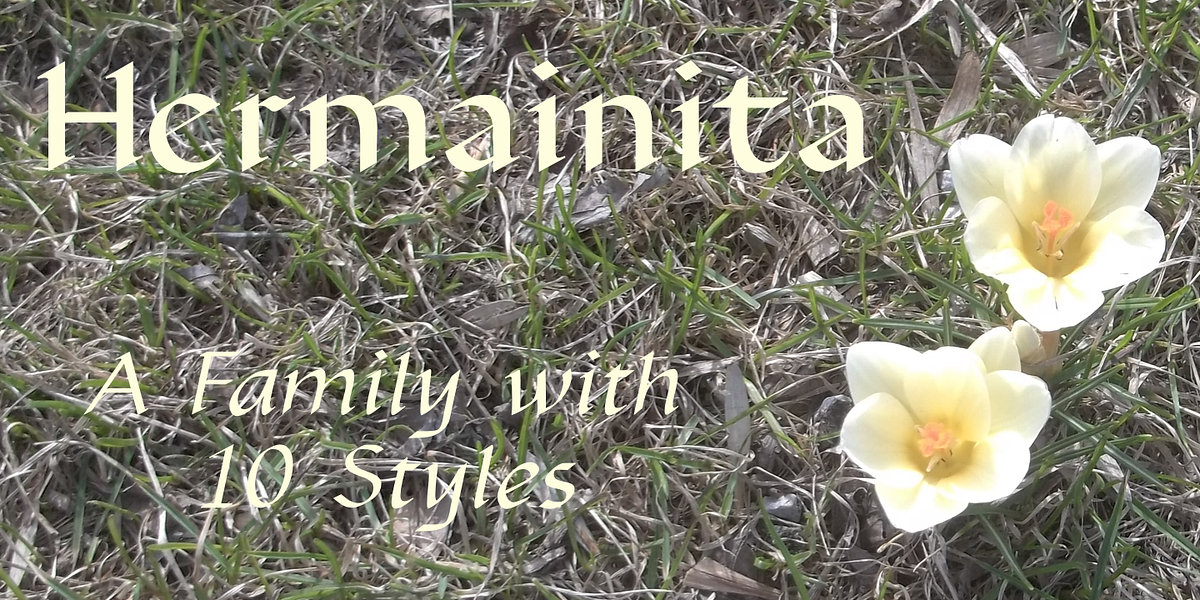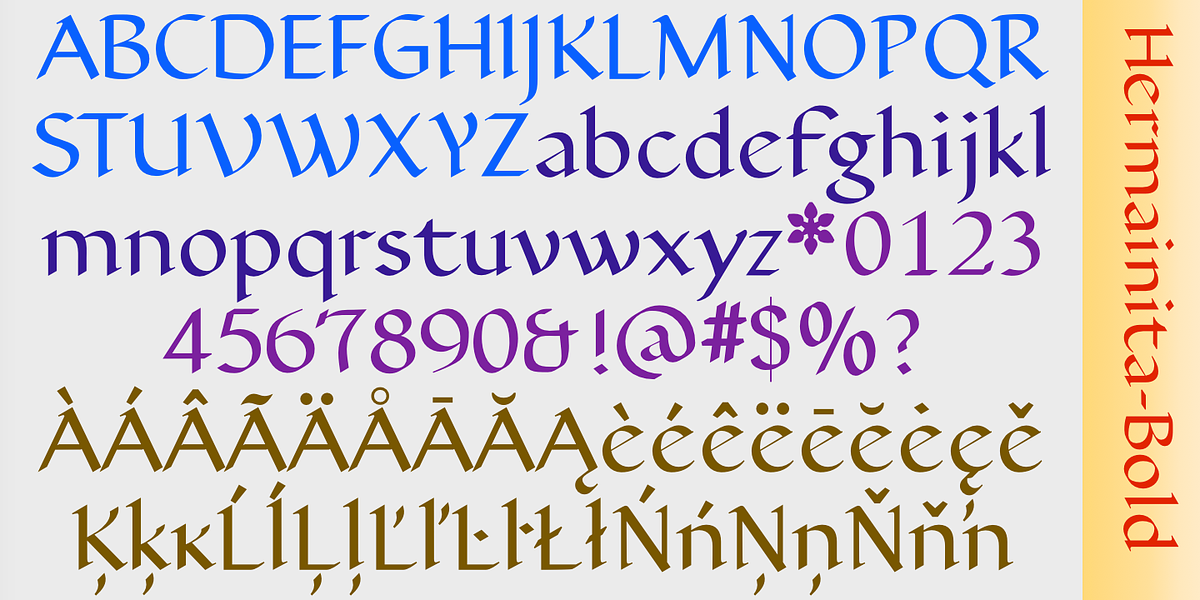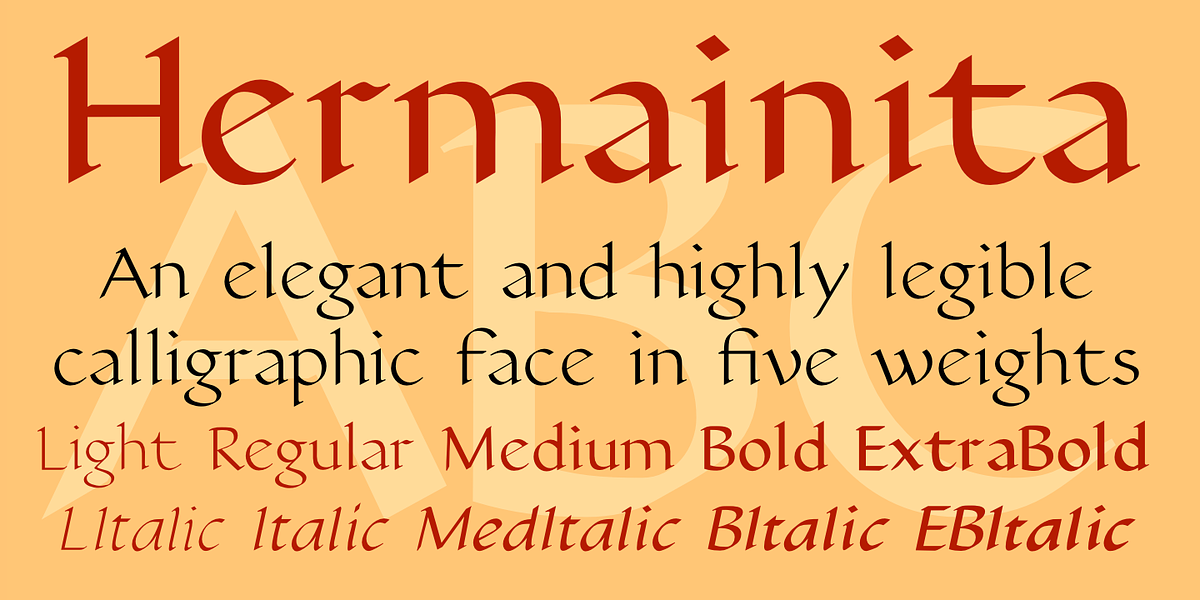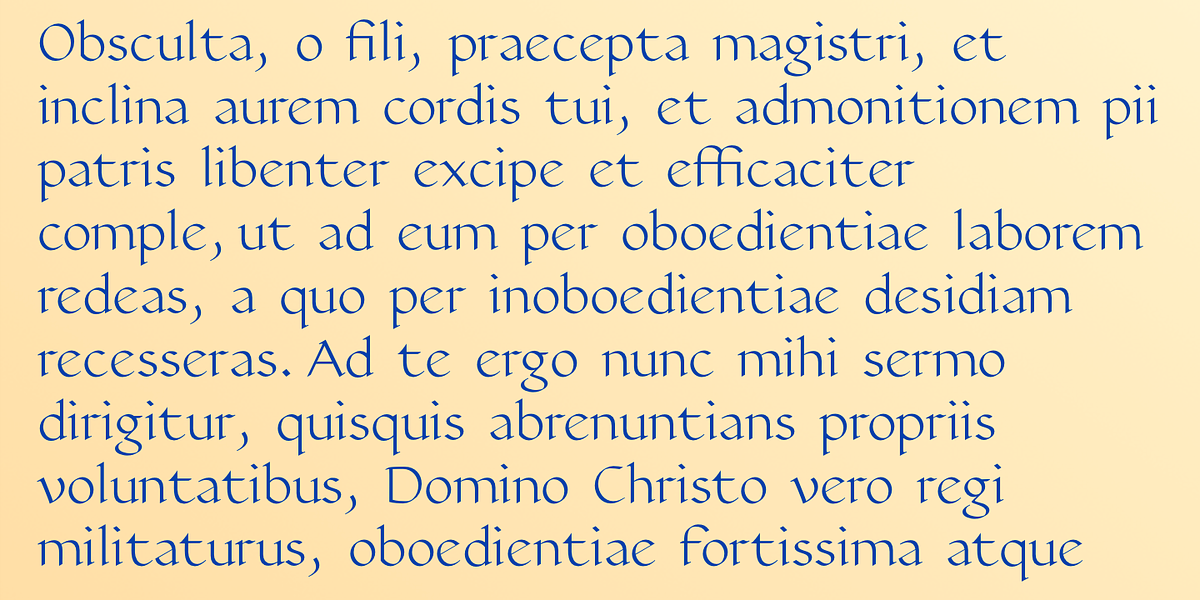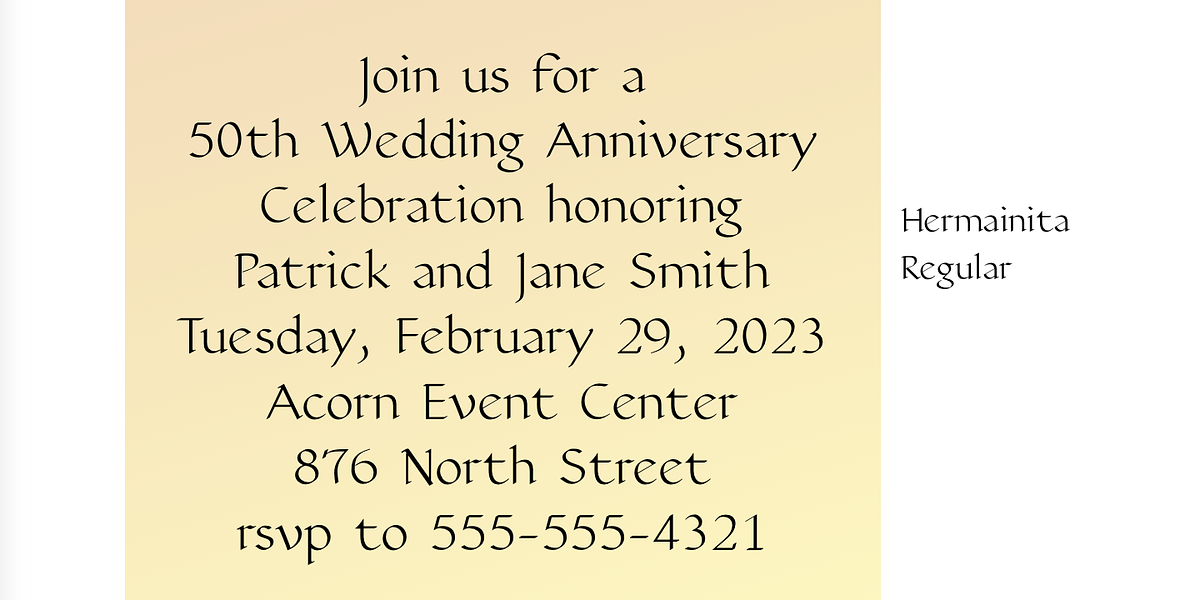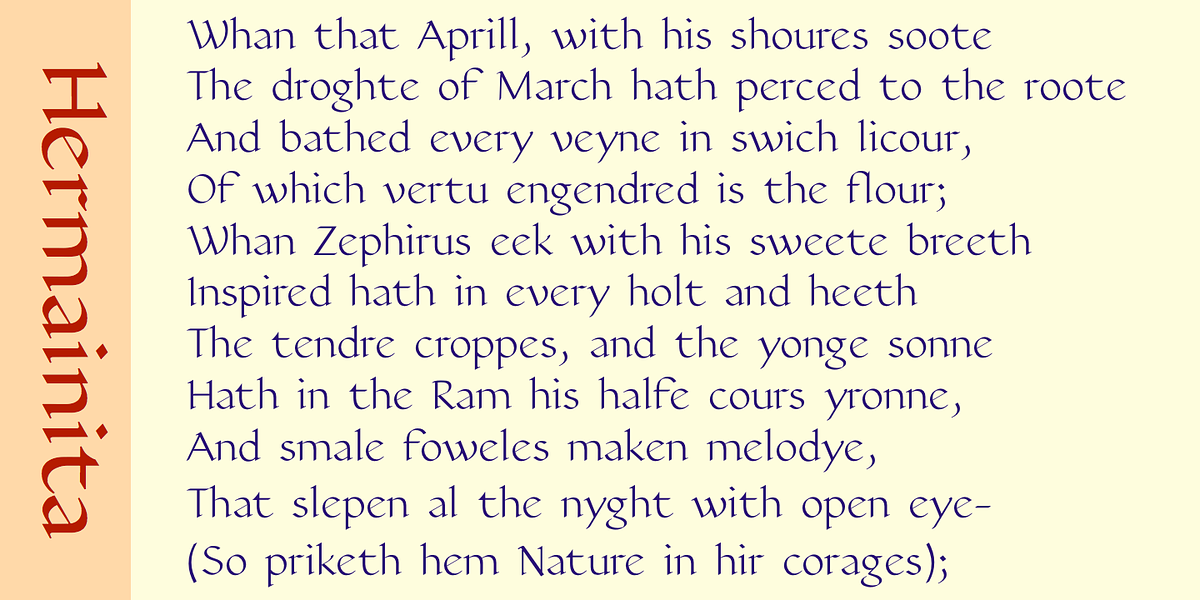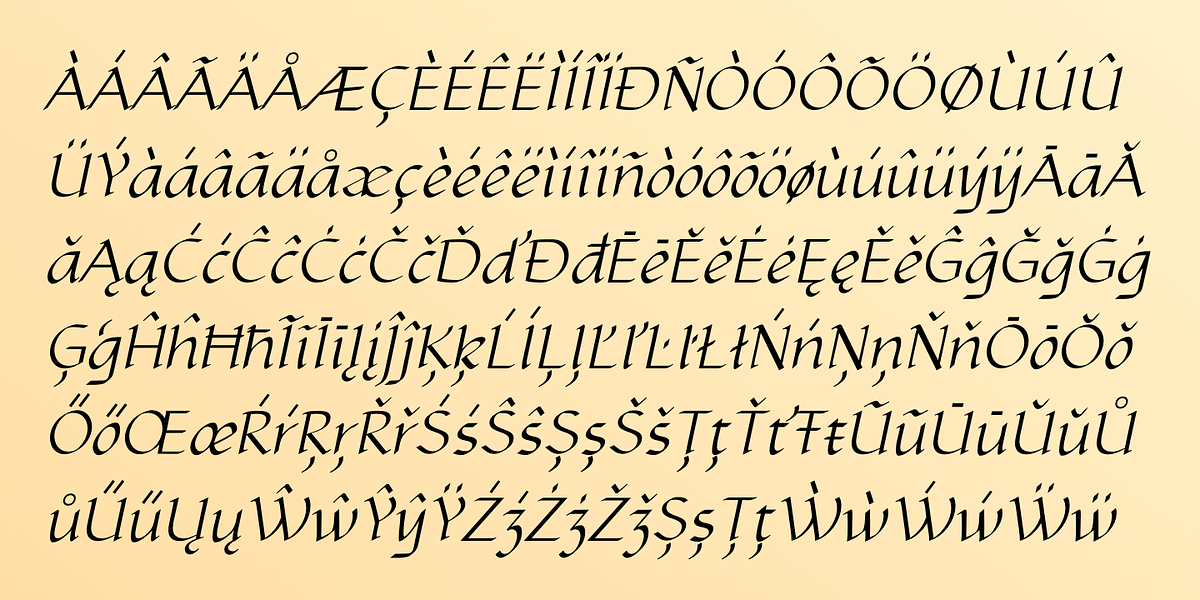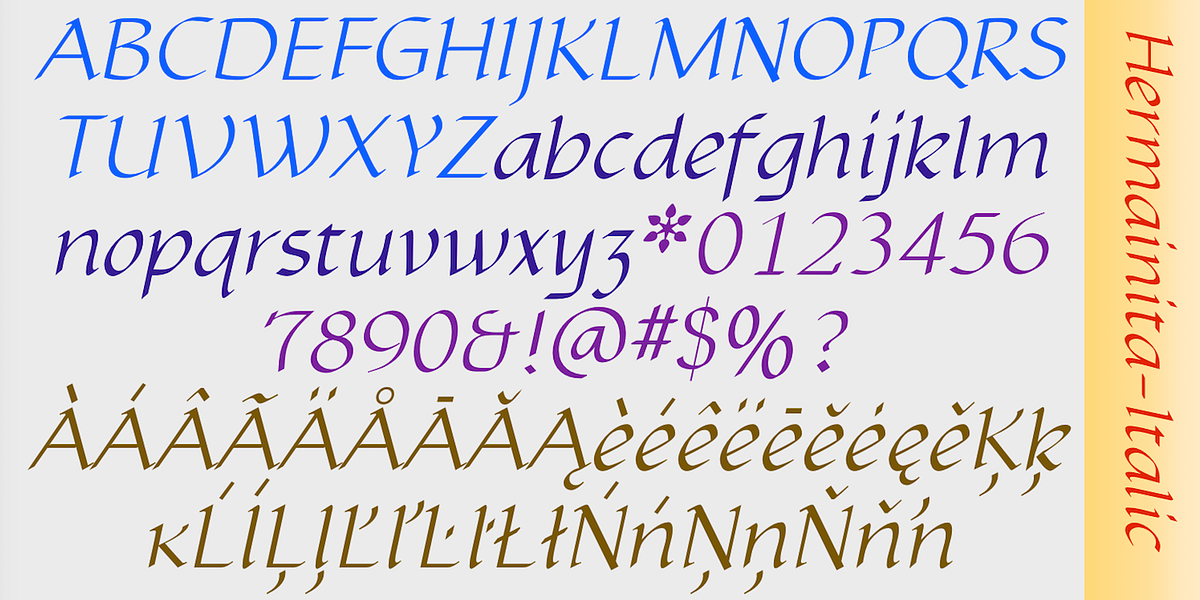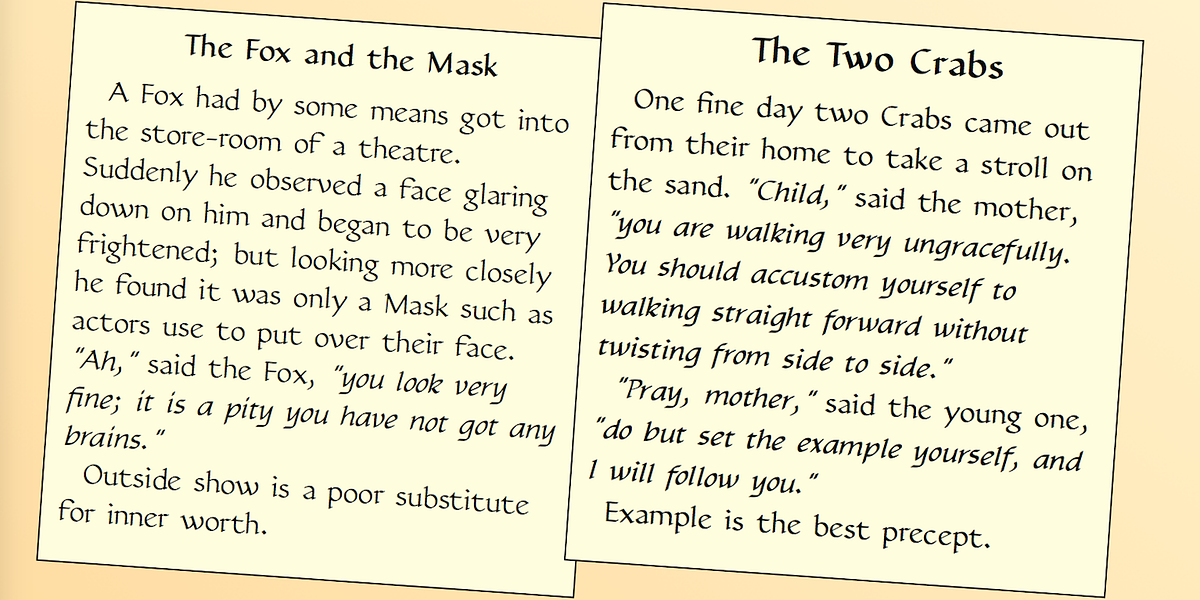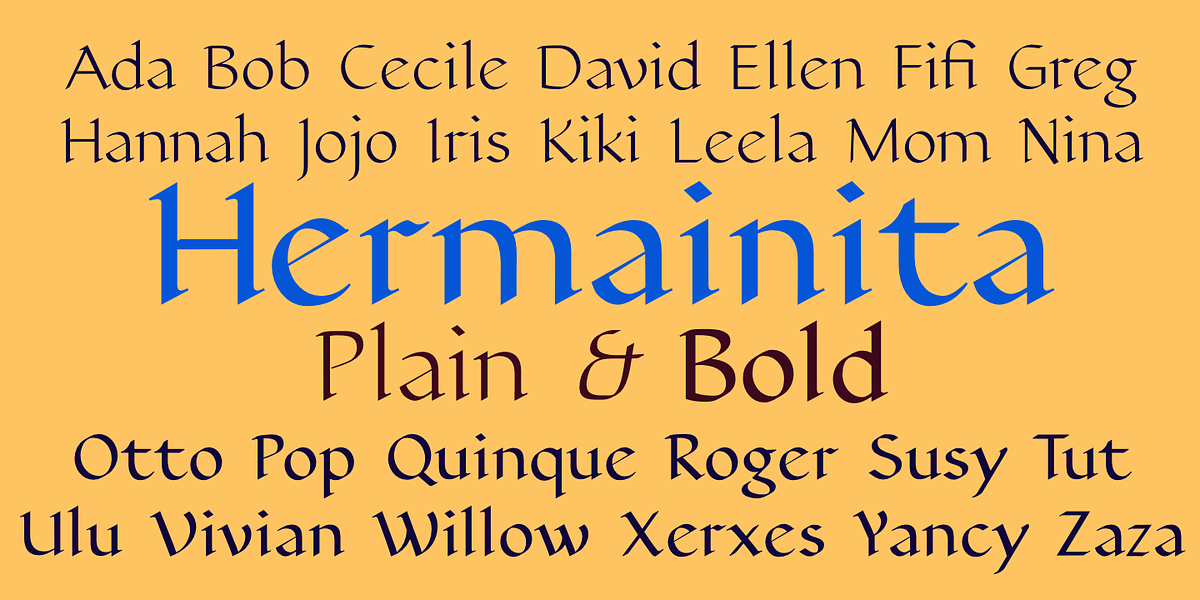
Hermainita
Hermainita is a calligraphic sans serif typeface designed for readability. Originally released in 1992 with two weights, it was expanded in 2021 to include three additional weights and italic styles.